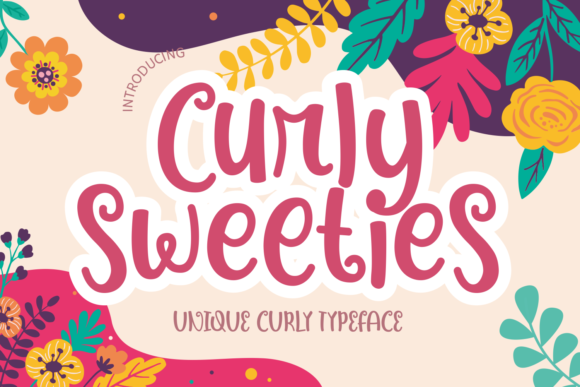
Get Ready to Unleash Your Creativity with Curly Sweeties Font
Have you ever stared at a blank page, feeling stuck and uninspired? You’re not alone! We’ve all been there, searching for that perfect spark to ignite our creativity. For designers, finding the right font can be the difference between a mediocre design and a showstopper. That’s where Curly Sweeties Font comes in – a delightful display font designed to add a touch of whimsy and fun to your projects.
Whether you’re creating promotions, events, marketing materials, or storybooks, Curly Sweeties Font is the perfect companion to help you bring your ideas to life. Its playful, curly lines are sure to captivate your audience and leave a lasting impression. As a designer, you’ll appreciate the versatility of this font, which can be used for a wide range of applications, from Easter-themed designs to clothing labels.
Curly Sweeties Font Key Features
- Font Family: Curly Sweeties
- Unique Characteristics: Features a whimsical, curly design with swashes and flourishes, ideal for creative and playful typography
Curly Sweeties Font Review
As a designer, I was excited to try out the Curly Sweeties Font, and overall, I’m impressed with its playful and whimsical feel. ✨ Here are a few things that stand out to me:
- Unique design: The font’s curly, handwritten feel is perfect for adding a touch of personality to projects.
- Highly customizable: The font offers a range of styles and weights, making it easy to adapt to different design needs.
- Fun and playful: The font’s lighthearted vibe makes it ideal for projects that need a bit of whimsy, such as children’s books or advertising campaigns.
- Legibility: While the font is visually appealing, it can be difficult to read in certain contexts, particularly in small sizes or at a distance.
Overall, I think the Curly Sweeties Font is a great choice for designers looking to add a touch of personality to their projects. While it may not be suitable for every design need, its unique design and high level of customization make it a valuable addition to any designer’s toolkit.
The Curly Sweeties font is ideal for:
- Creativity and imagination-based projects.
- Children’s books and educational materials.
- Playful and whimsical designs.
Remember to experiment with font sizes, colors, and styles to get the most out of this unique font.
Alternatives to Curly Sweeties Font
Playfair Display is an elegant, high-end serif font ideal for luxury branding, high-end fashion, and sophisticated packaging. It features intricate details and flourishes, making it a great choice for creating a sense of opulence and refinement.
Compared to Curly Sweeties Font, Playfair Display has a more formal and luxurious feel, while Curly Sweeties Font is more playful and whimsical. Playfair Display is better suited for high-end branding and packaging, whereas Curly Sweeties Font is ideal for children’s products, party invitations, and other fun and playful applications.
Lobster is a fun, cursive script font perfect for casual and creative applications. It’s great for designing menus, signage, and other items that require a friendly and approachable tone.
Lobster is more casual and laid-back compared to Curly Sweeties Font, which has a more playful and whimsical feel. While Curly Sweeties Font is ideal for children’s products and party invitations, Lobster is better suited for casual and creative applications, such as food trucks, cafes, and street art.
Great Vibes is a beautiful, handwritten font that’s perfect for creating a relaxed and casual atmosphere. It’s great for designing invitations, posters, and other items that require a friendly and approachable tone.
Great Vibes is more casual and relaxed compared to Curly Sweeties Font, which has a more playful and whimsical feel. While Curly Sweeties Font is ideal for children’s products and party invitations, Great Vibes is better suited for casual and creative applications, such as music festivals, yoga studios, and other relaxed environments.